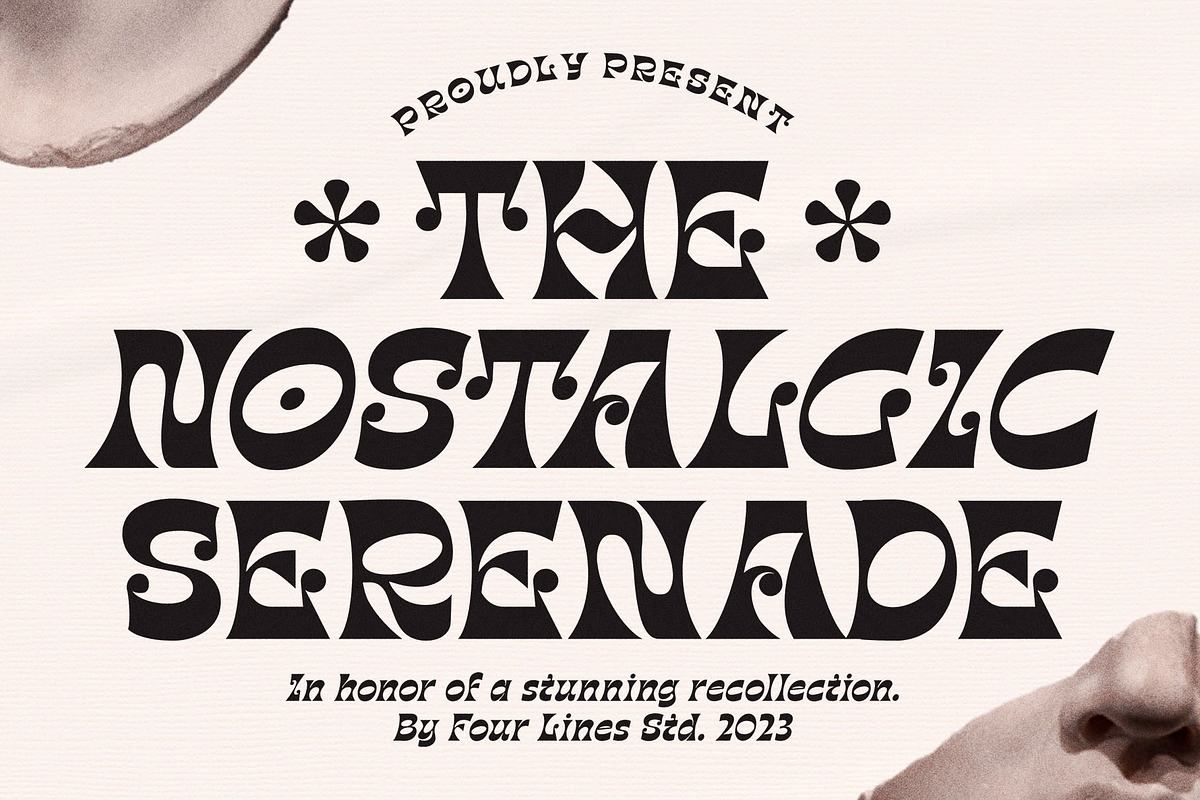
Nostalgic Serenade – Vintage Display Font Free Download is a beautifully crafted typeface that evokes the charm and elegance of retro design. With its decorative and vintage-inspired letterforms, Nostalgic Serenade is perfect for creating eye-catching headlines, logos, posters, branding, and any design that needs a touch of nostalgia and old-world charm.
Nostalgic Serenade – Vintage Display Font Free Download combines classic typography with a contemporary flair, making it an excellent choice for projects that require a bold yet timeless feel. Its intricate detailing and vintage vibes make it ideal for everything from creative agency branding to retro event invitations.